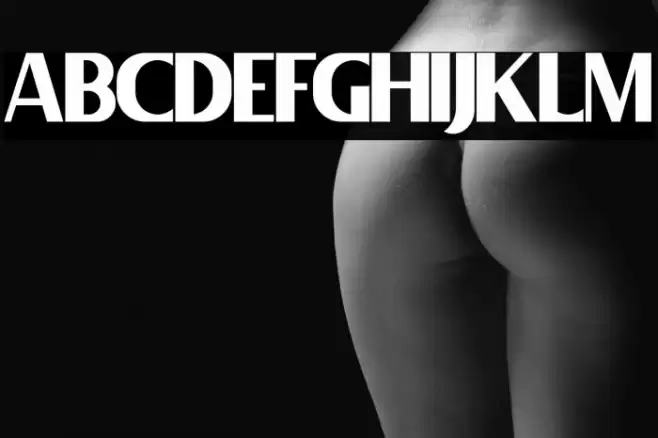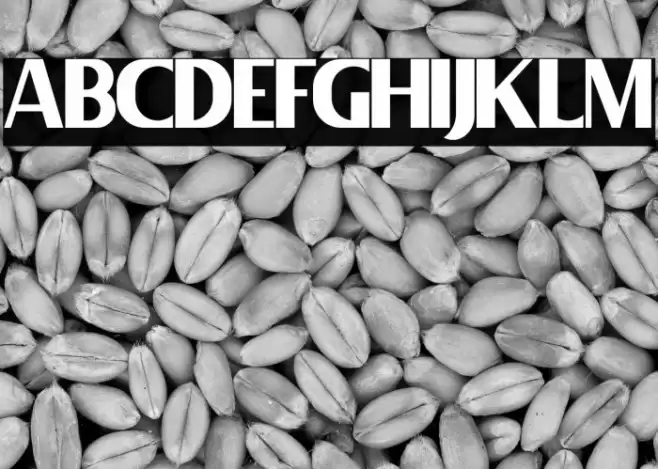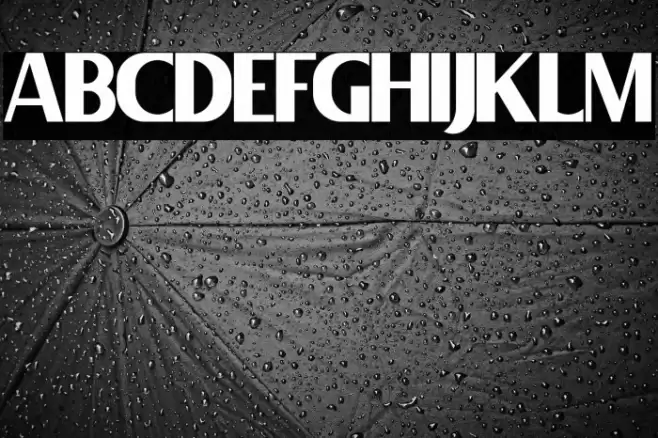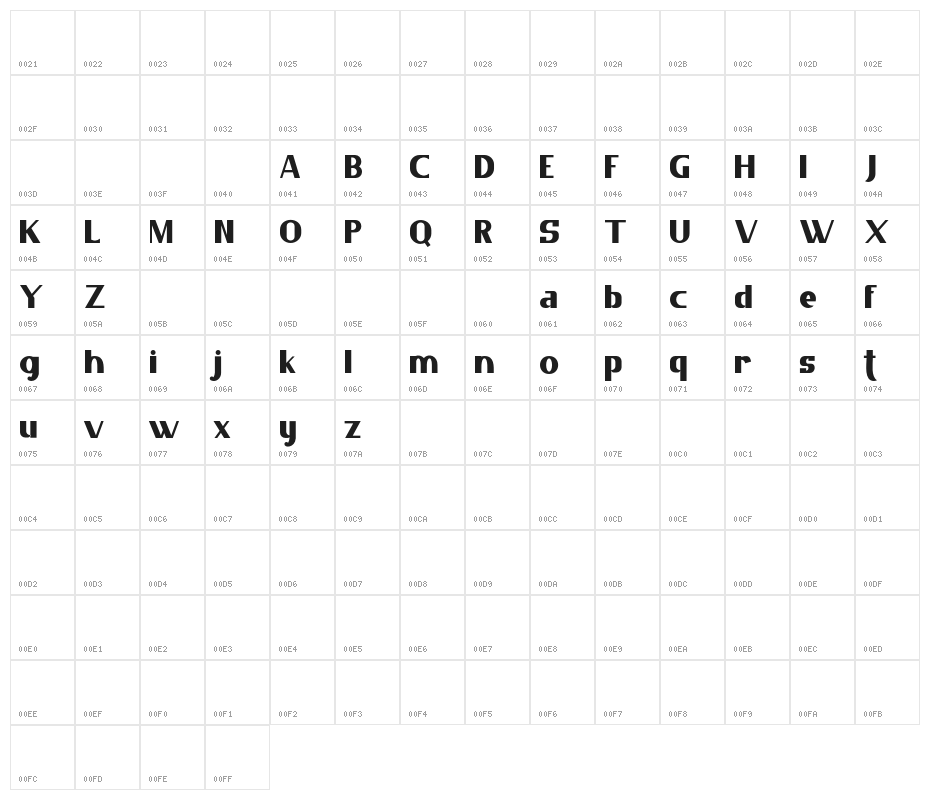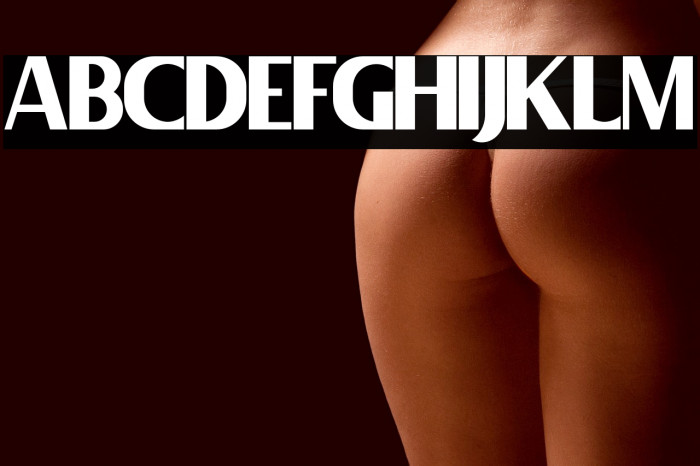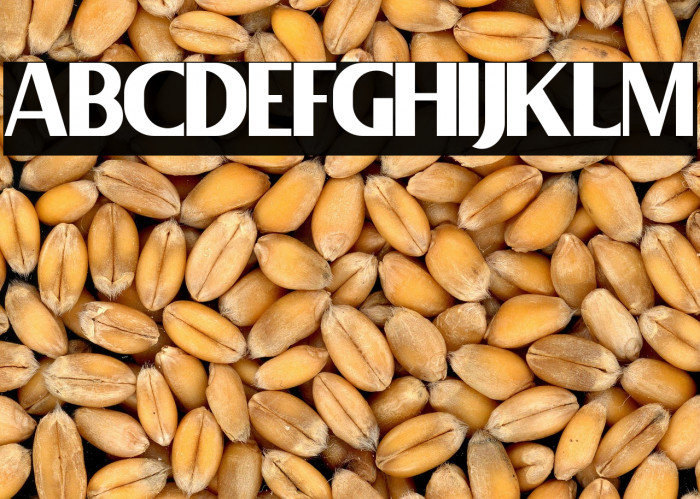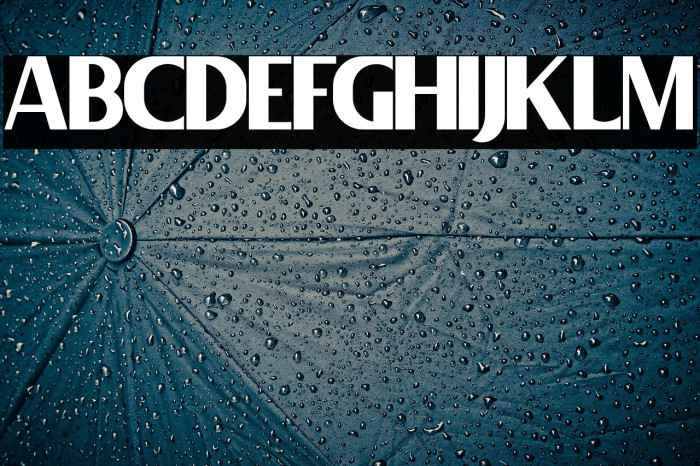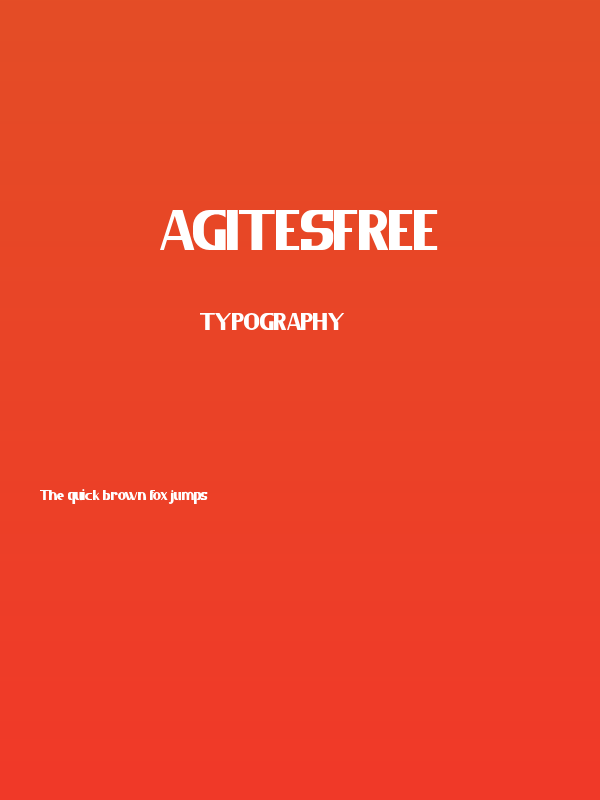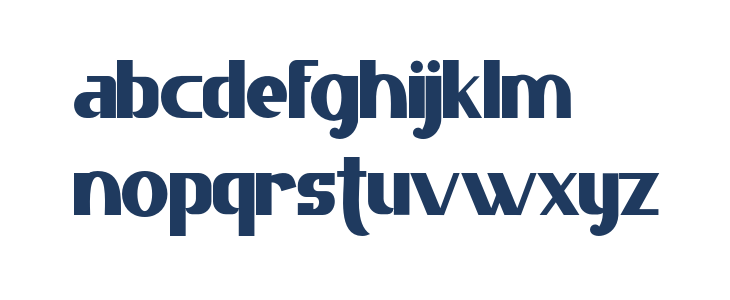
AgitesFREE Font
AgitesFREE Description
This font features a bold and dynamic style with a modern twist. The uppercase letters are characterized by sharp angles and clean lines, creating a sense of movement and energy. The lowercase letters maintain a consistent weight, offering a harmonious balance between the characters. The design includes unique elements, such as the distinctive curves in letters like 'g' and 'q', which add a playful touch. The numerals are bold and easily readable, while the special characters are designed to complement the overall aesthetic. This font's strong presence makes it ideal for impactful designs.
A bold, modern font with dynamic angles and clean lines from Uncategorized fonts.
- Font: AgitesFREE
- Proposed Projects: Ideal for branding, posters, headlines, and any project requiring a strong visual impact.